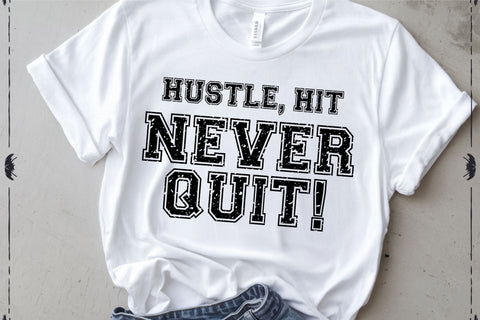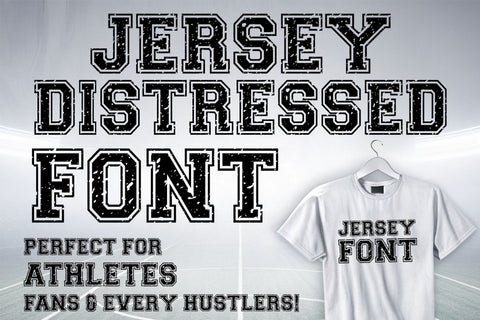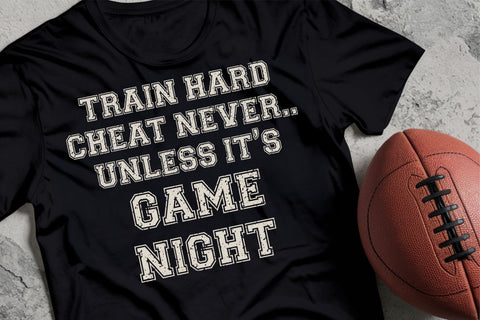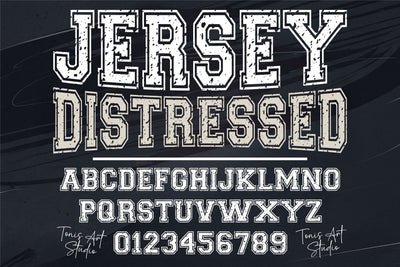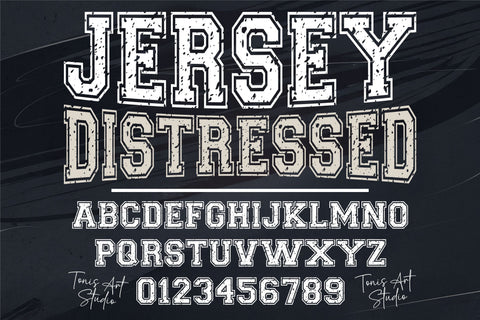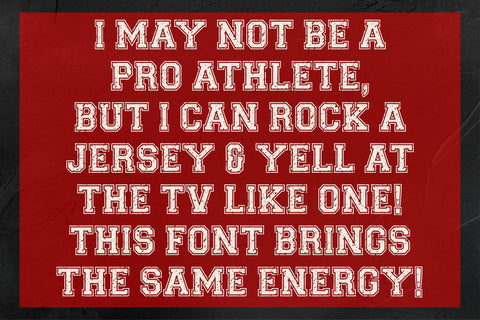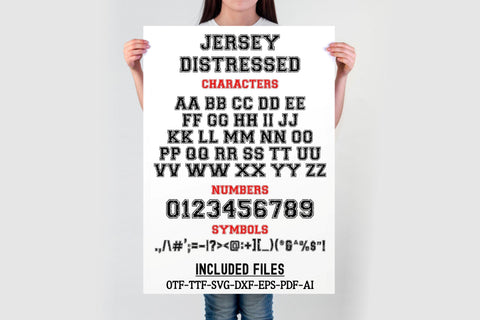
Jersey Distressed Font | Bold Varsity Sports Typeface
Jersey Distressed is a powerful varsity-style sports font with a grunge, rugged finish, ideal for football jerseys, team logos, workout gear, and bold sports-themed designs. This versatile distressed font works great for Cricut, Silhouette, and t-shirt printing. Featuring a bold display style, it fits perfectly with championship branding, custom lettering, and athletic apparel. Includes uppercase, numbers, and symbols in OTF and TTF formats. A must-have for sports designers!